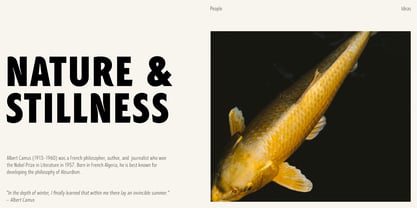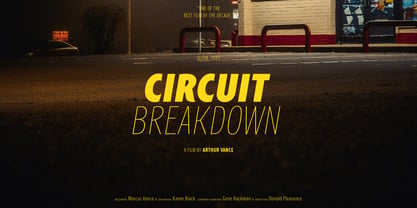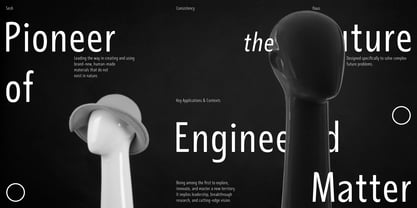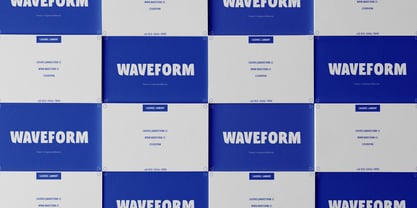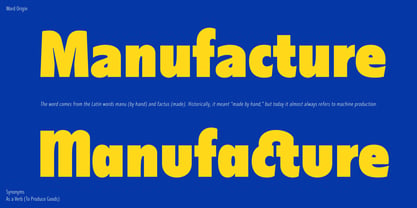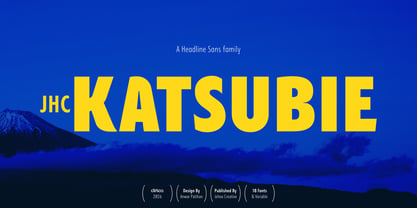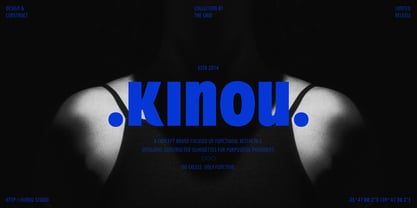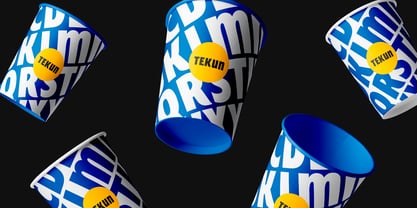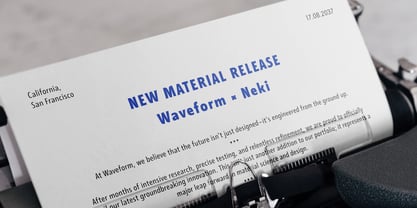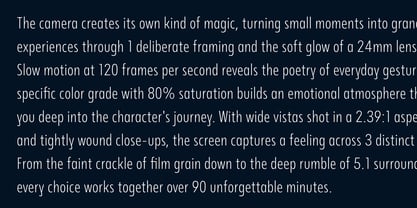
JHC Katsubie
by Jehoo Creative
The JHC Katsubie Font Family was designed by Anwar Patihan and published by Jehoo Creative. JHC Katsubie contains 19 styles and family package options. More about this family
JHC Katsubie is built to break the silence. Engineered with a sharp, space-saving condensed architecture and laced with expressive display accents, this typeface brings raw energy and undeniable attitude to high-impact headlines, editorial covers, posters, and bold brand identities.
The family spans 18 static styles, moving from a refined Thin all the way to a Black, with matching Italics for every weight. It also includes a unified Variable font featuring 2 axes (Weight and Italic), giving you complete freedom to fine-tune thickness and slant on the fly without cluttering your workflow.
Underneath its striking exterior lies a deeply flexible typographic toolkit. OpenType features grant total creative freedom through stylistic set ss01 (M, N, U), distinct character variants for a and u, and a standard and discretionary ligatures to build custom, expressive layouts.
Designed to communicate on a global scale, JHC Katsubie pairs its commanding presence with extensive multi-script character support, spanning Extended Latin, Cyrillic, and Greek character sets.